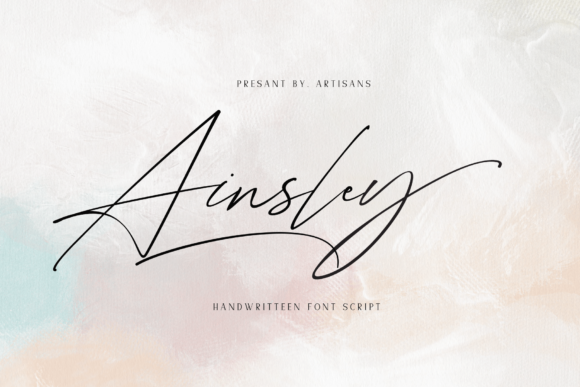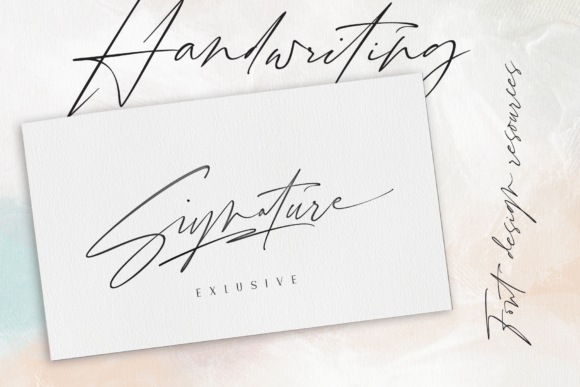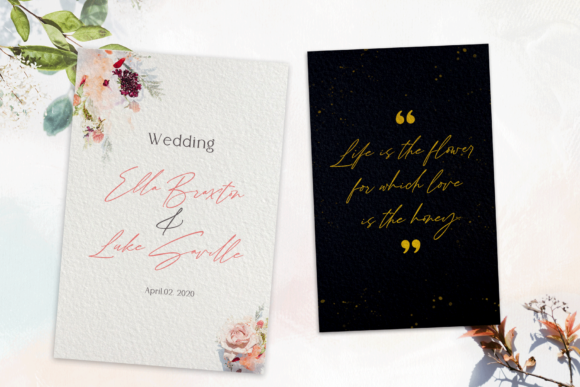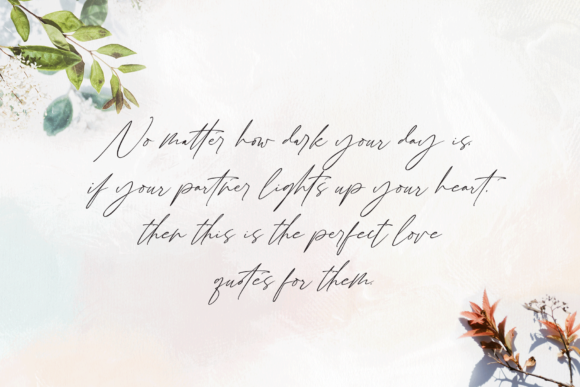
Ainsley Font
About Ainsley Font
Ainsley is a thin and delicate handwritten font. It looks beautiful on a variety of designs requiring a personalized style, such as wedding invitations, thank you cards, weddings, greeting cards, logos and so on.